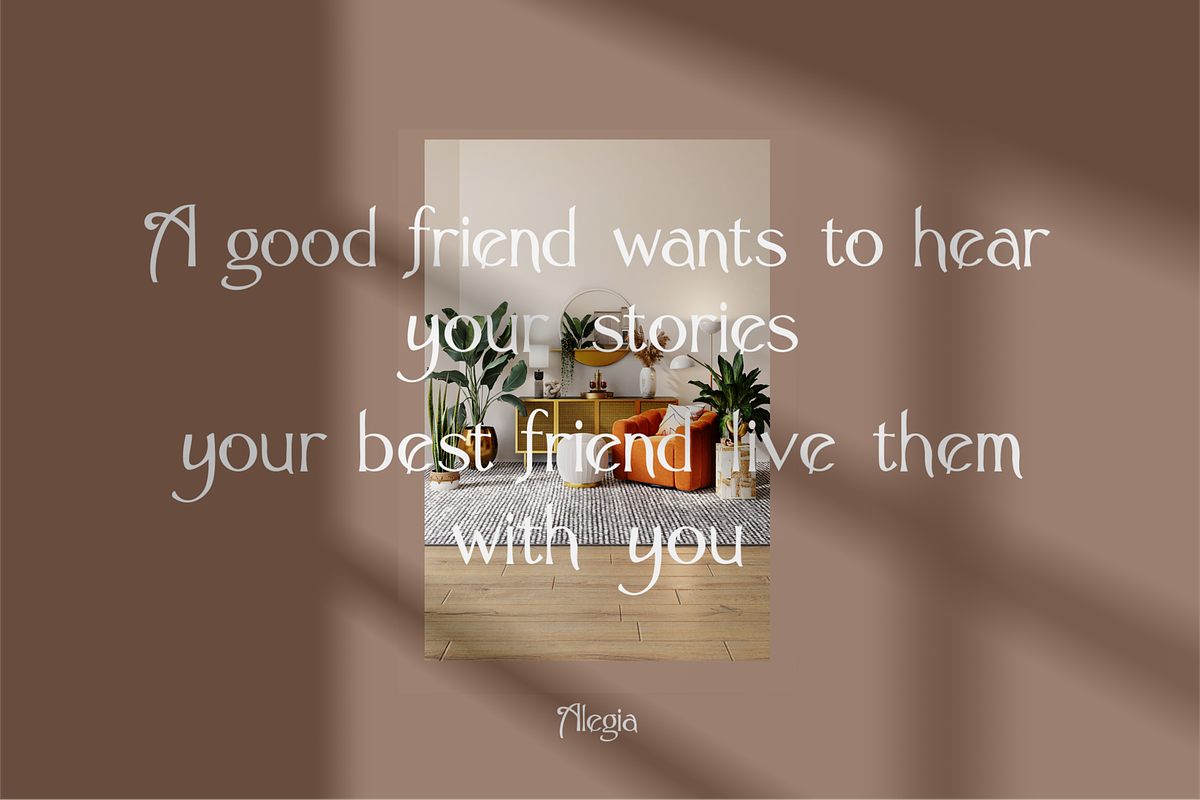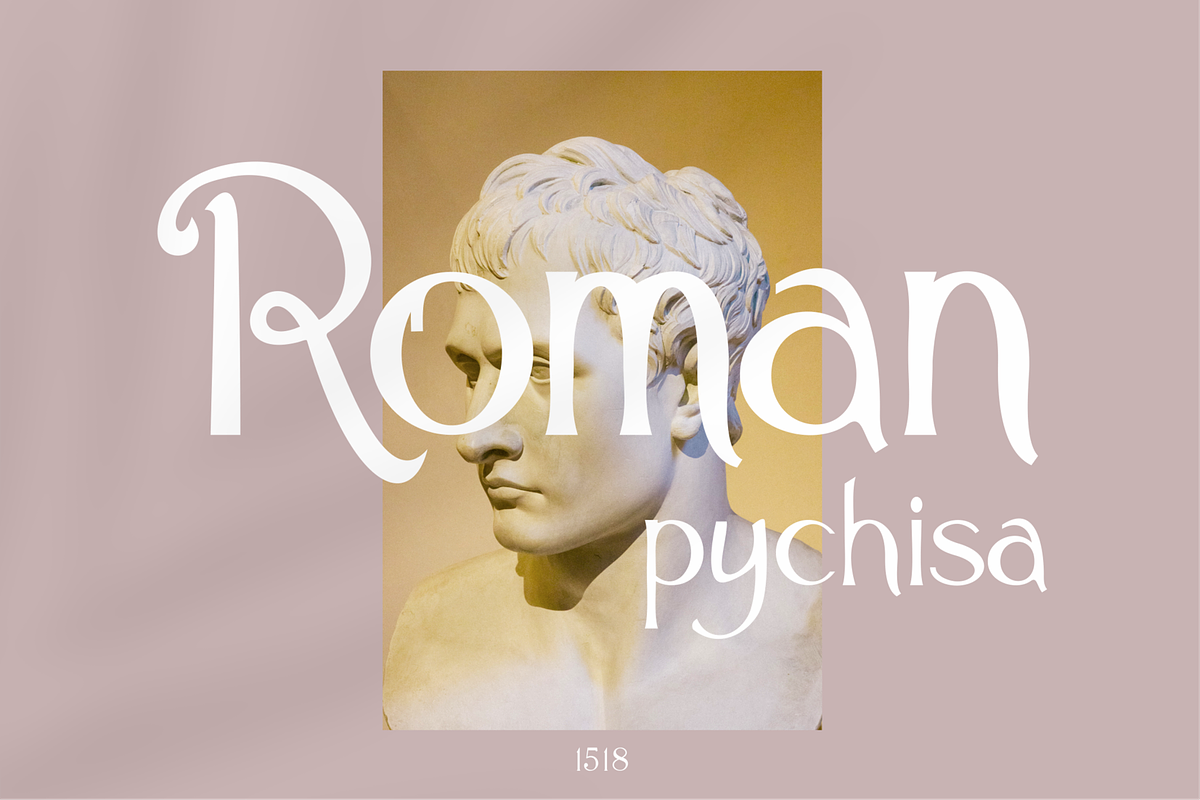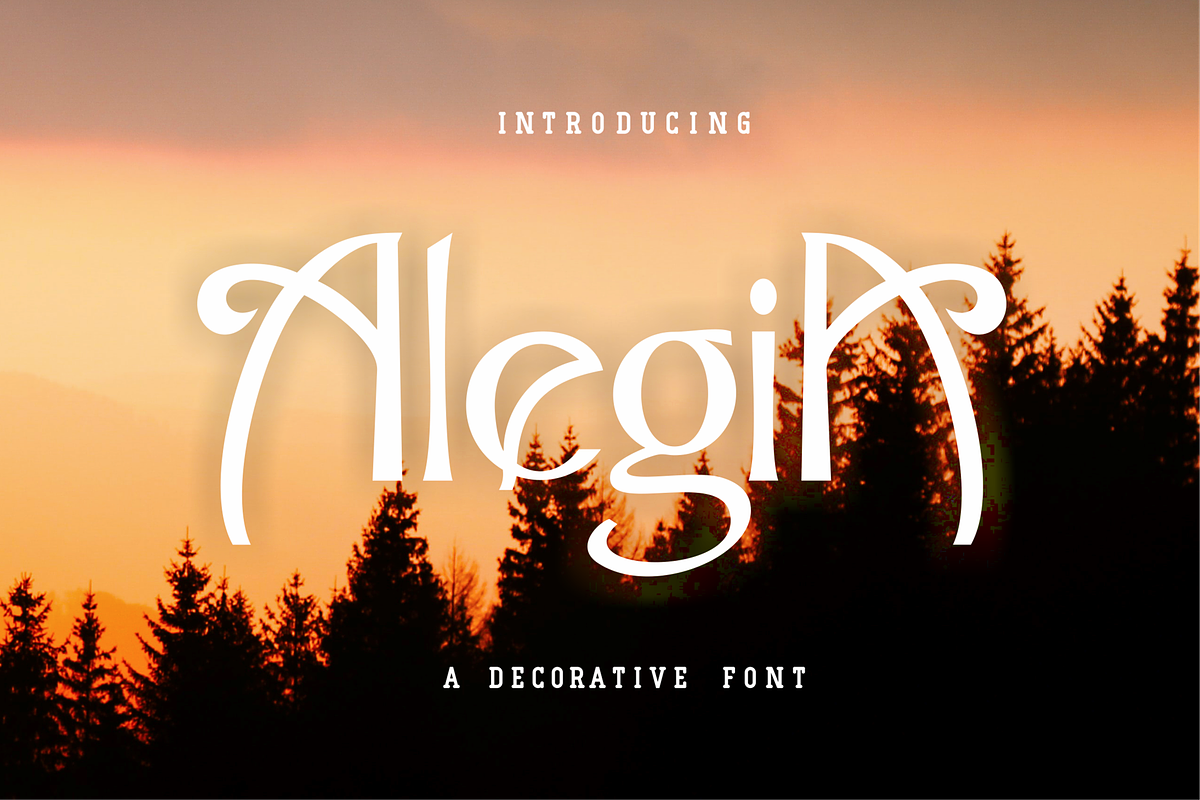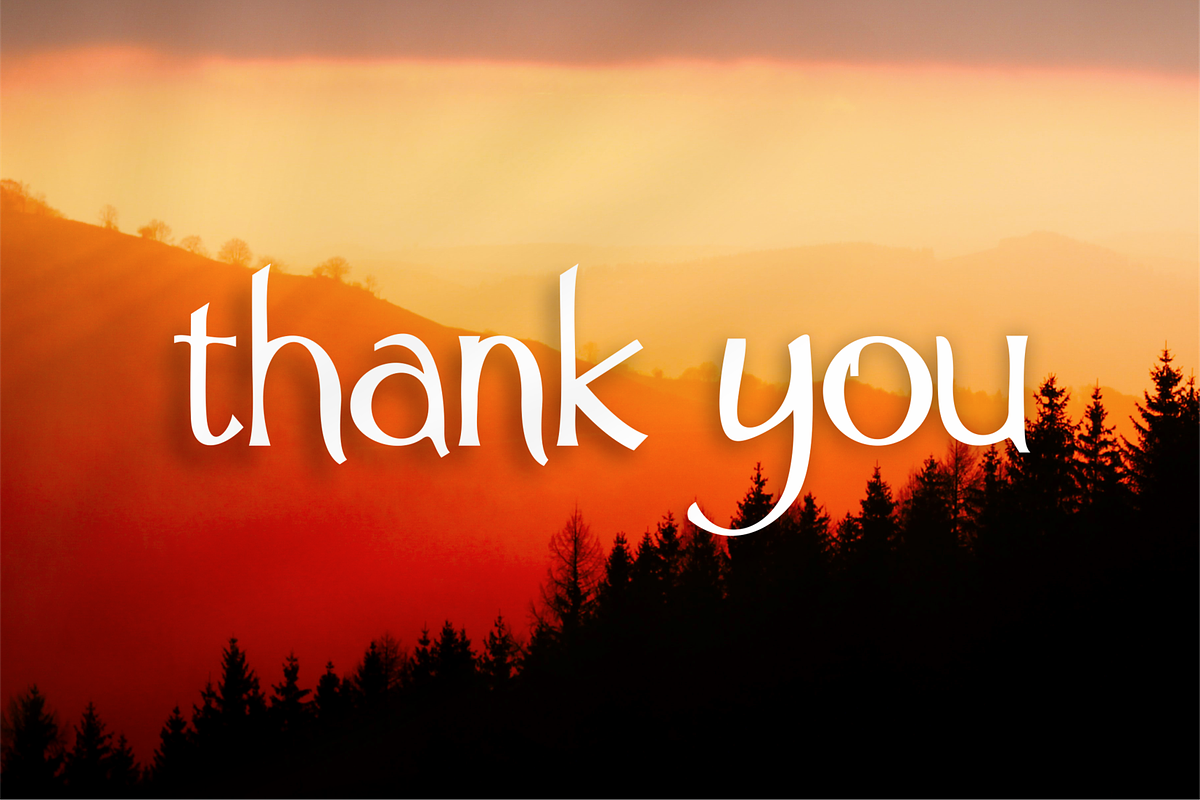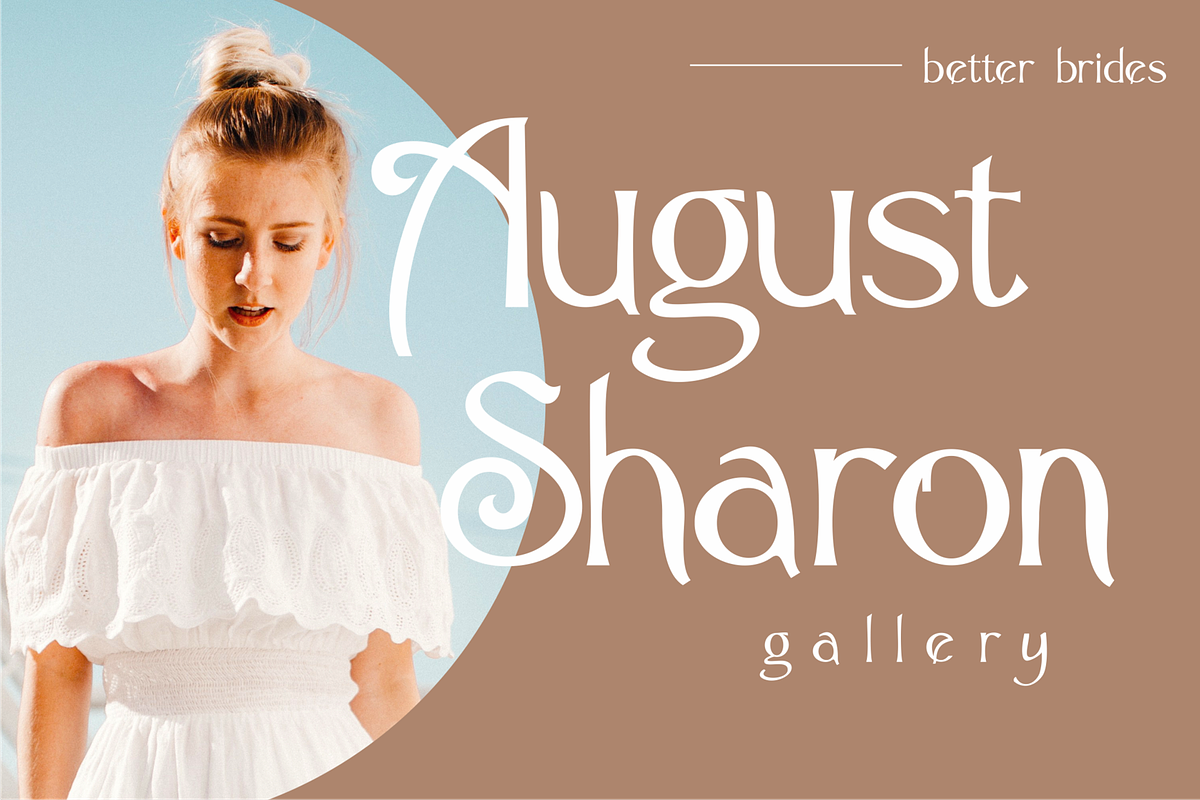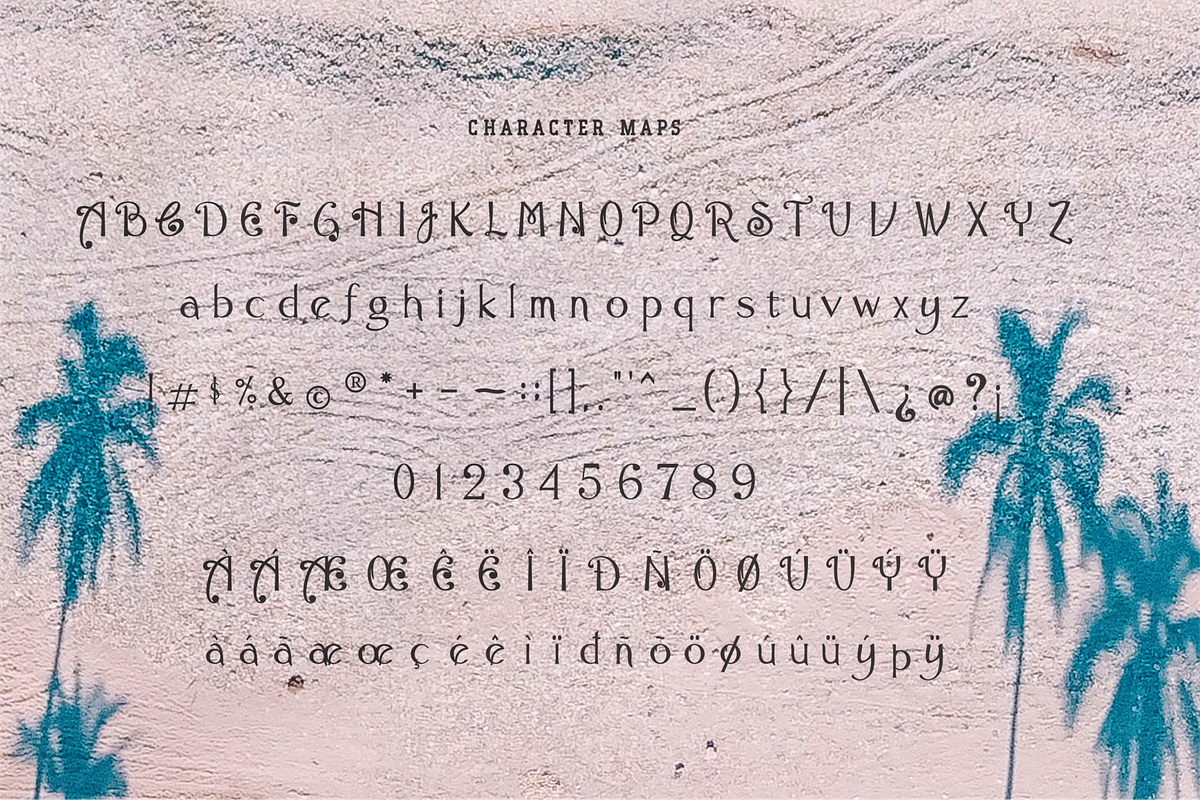
Alegia
introducing our new "Alegia" Modern Serif Font with Elegant style this is perfect for branding, logos, invitation, masterheads and more.
Features ;
- Number & Puctuation